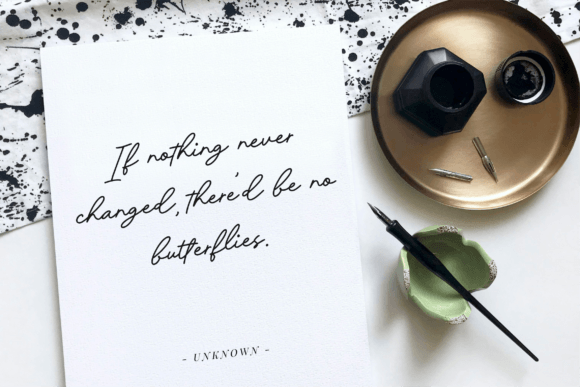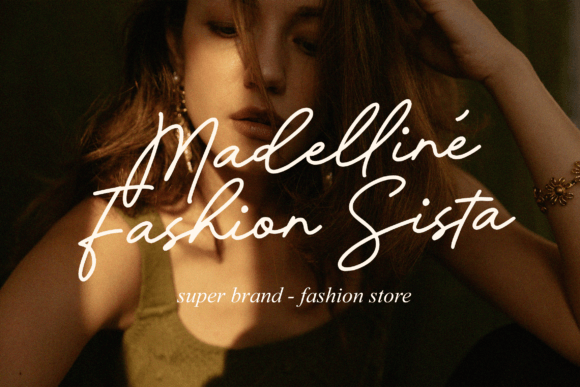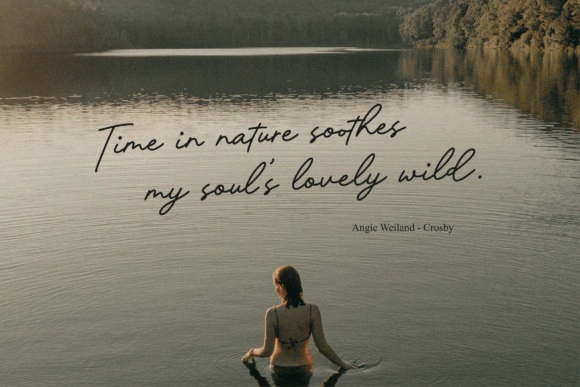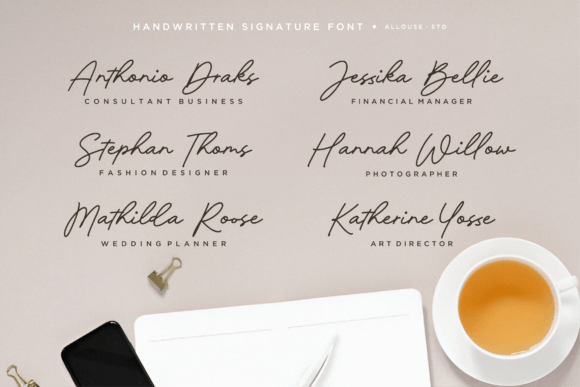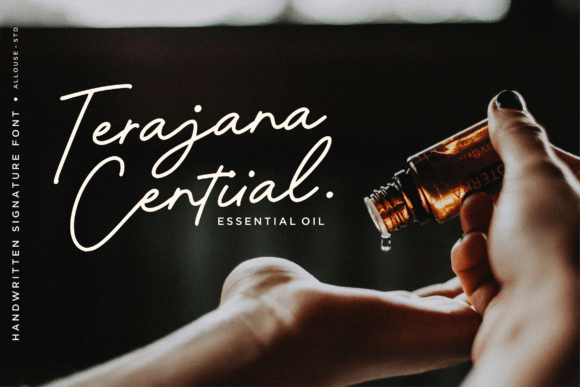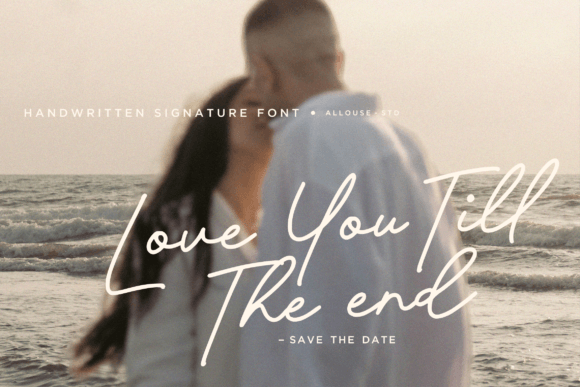
Introduction to Bentleycraft Font
As a designer, there’s nothing quite like the thrill of bringing a creative project to life. The moment when your vision and imagination collide, and you get to see the final result in all its glory. It’s a feeling that never gets old, and it’s exactly what drives us to keep pushing the boundaries of what’s possible. For me, that moment came when I stumbled upon the elegant Bentleycraft Font – a stunning script font that adds a touch of sophistication to any design.
With its versatility and high-quality design, the Bentleycraft Font is an invaluable resource for designers looking to elevate their work. Whether you’re creating a wedding invitation, a business card, or a logo, this font is sure to impress. And the best part? It’s available for free download, making it an accessible addition to any design arsenal.
From its transparent background to its smooth, flowing lines, the Bentleycraft Font is a true gem for designers. Its value lies not only in its aesthetic appeal but also in its ability to convey a sense of elegance and refinement – making it a must-have for any creative project.
Bentleycraft Font
- High-quality design resource suitable for various creative projects, including digital art and graphic design.
- Comes with a transparent background, allowing for seamless integration into any design.
- Features a unique, modern design that can add a touch of sophistication to any creative project.
- Designed at a high resolution, ensuring crisp and clear text display, even at large sizes.
- Includes a range of font sizes, from 12pt to 72pt, making it suitable for a variety of design applications.
Honest Review: Bentleycraft Font
I recently had the chance to work with the Bentleycraft Font on a creative project, and I must say it’s been a pleasant experience. This font has been a great addition to my design resource collection.
- High-quality design: The Bentleycraft Font has a unique and elegant design that can add a touch of sophistication to any project.
- Transparent background: This feature allows for easy editing and customization of the font, which is a huge plus.
- Limited font styles: While the Bentleycraft Font has a unique design, it’s limited to a single style, which might not be suitable for projects that require multiple font styles.
- Not suitable for large-scale projects: Due to its limited availability and free download option, the Bentleycraft Font might not be the best choice for large-scale commercial projects.
Overall, I’m impressed with the Bentleycraft Font’s high-quality design and transparent background feature. While it has some limitations, it’s a great resource for designers working on smaller projects or personal creative projects. I would definitely recommend it for its unique design and free download option.
Bentleycraft Font
The Bentleycraft Font is perfect for:
- Print materials, such as business cards and brochures
- Digital designs, such as social media graphics and presentations